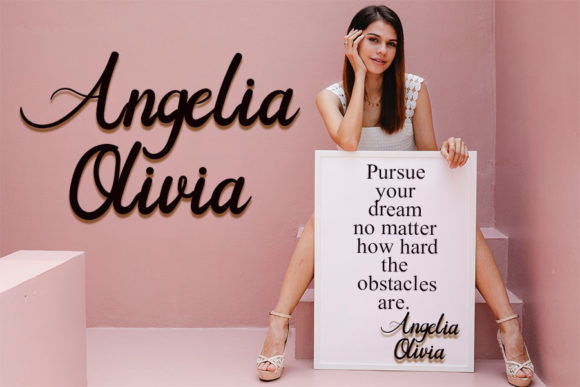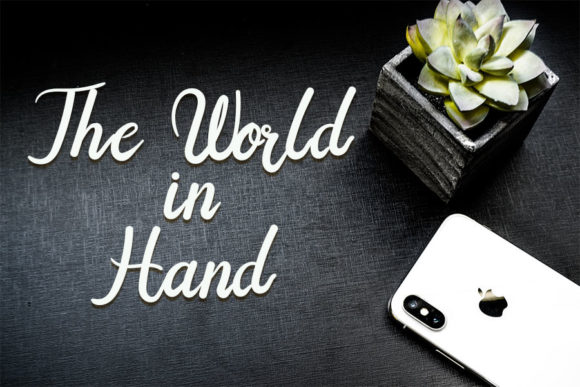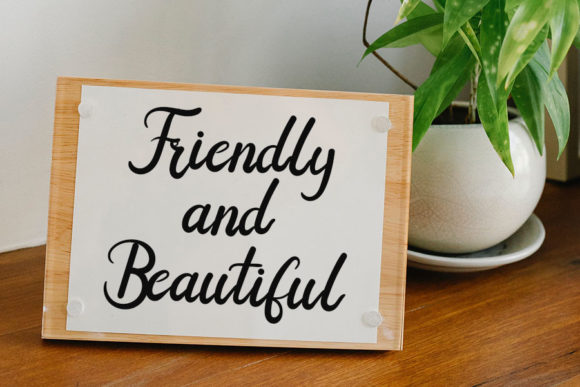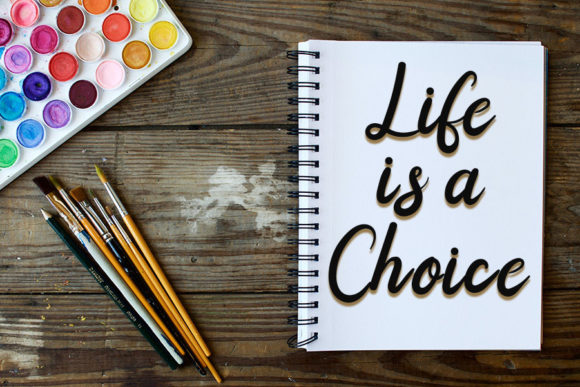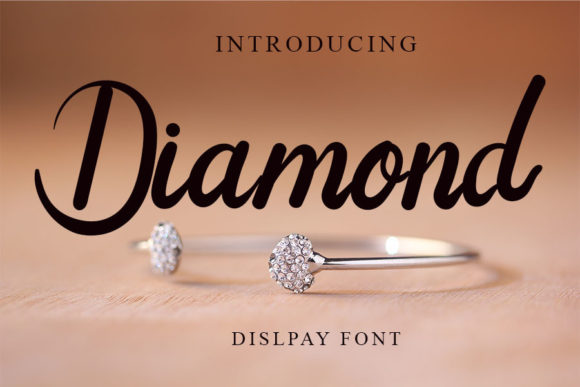
Diamond Font: Elevate Your Designs with a Trendy and Chic Lettered Script
In the world of design, fonts play a crucial role in conveying the tone and aesthetic of a project. For crafters, digital designers, and creators, finding the perfect font can make all the difference. This is where the Diamond Font comes in – a trendy and chic lettered script font that’s perfect for a variety of applications. In this article, we’ll dive into the world of Diamond Font, exploring its features, uses, and benefits for designers and crafters.
What is Diamond Font?
Diamond Font is a stylish and modern lettered script font that’s designed to add a touch of elegance and sophistication to any project. Its unique and flowing script style makes it perfect for a wide range of applications, from crafting and digital designing to presentations and greeting cards.
Key Features of Diamond Font
So, what makes Diamond Font stand out from the rest? Here are some of its key features:
- Trendy and Chic: Diamond Font boasts a modern and stylish design that’s sure to turn heads.
- Lettered Script: Its flowing script style adds a touch of elegance and sophistication to any project.
- Versatile: Diamond Font is perfect for a wide range of applications, from crafting and digital designing to presentations and greeting cards.
- Easy to Read: Despite its stylish design, Diamond Font remains easy to read, making it perfect for body text and headings.
Uses of Diamond Font
Diamond Font is an incredibly versatile font that can be used in a variety of applications. Here are some ideas to get you started:
- Crafting: Add a touch of elegance to your crafting projects, such as scrapbooking, card making, and journaling.
- Digital Designing: Use Diamond Font in your digital designs, such as social media graphics, blog posts, and email newsletters.
- Presentations: Elevate your presentations with a stylish and professional font that’s sure to impress.
- Greeting Cards: Create beautiful and elegant greeting cards for special occasions, such as birthdays, weddings, and holidays.
Benefits of Using Diamond Font
So, why should you choose Diamond Font for your next project? Here are some benefits of using this stylish font:
- Adds Elegance: Diamond Font adds a touch of elegance and sophistication to any project.
- Versatile: Its versatility makes it perfect for a wide range of applications.
- Unique: Its unique design makes it stand out from more traditional fonts.
Tips for Using Diamond Font
Here are some tips for using Diamond Font in your next project:
- Pair with Other Fonts: Pair Diamond Font with other fonts to create a unique and stylish combination.
- Use for Headings: Use Diamond Font for headings and titles to add a touch of elegance.
- Experiment with Colors: Experiment with different colors to find the perfect match for your project.
In conclusion, Diamond Font is a trendy and chic lettered script font that’s perfect for designers and crafters. Its versatility, elegance, and ease of use make it an excellent choice for a wide range of applications. Whether you’re creating a crafting project, digital design, presentation, or greeting card, Diamond Font is sure to elevate your design and add a touch of sophistication. So, why not give it a try and see the difference it can make?